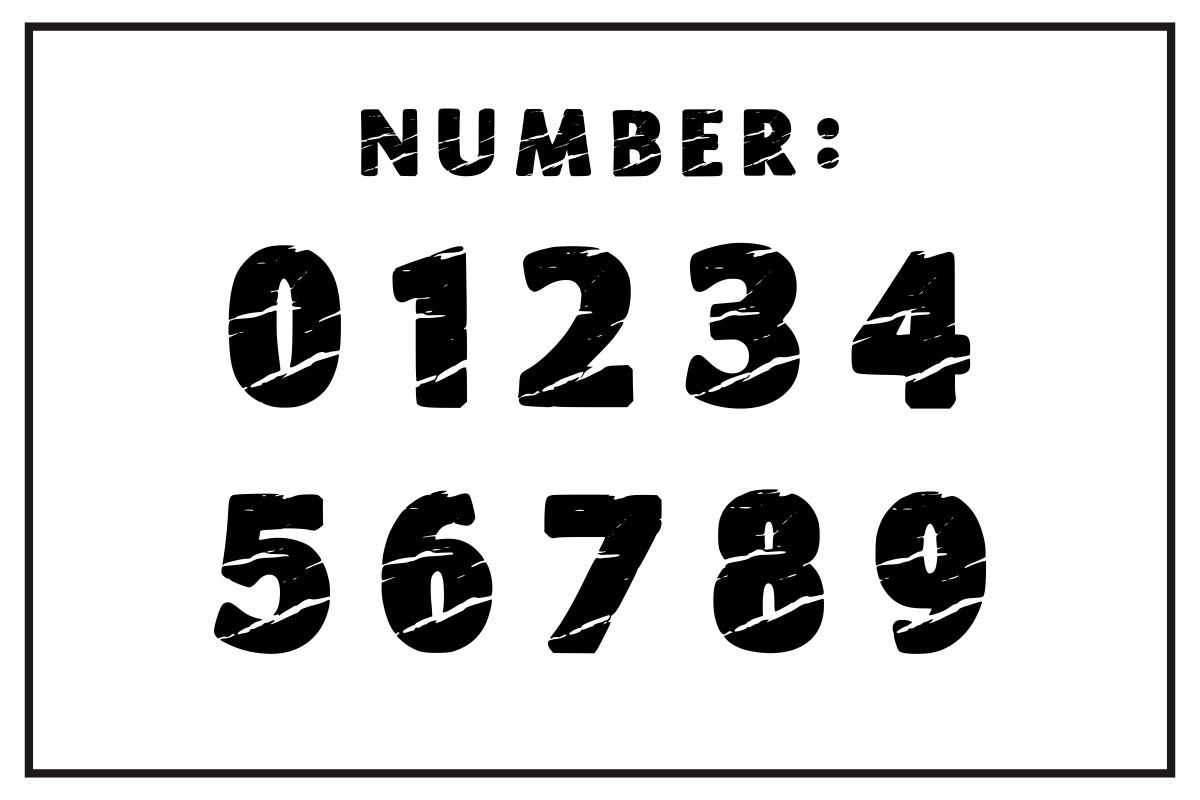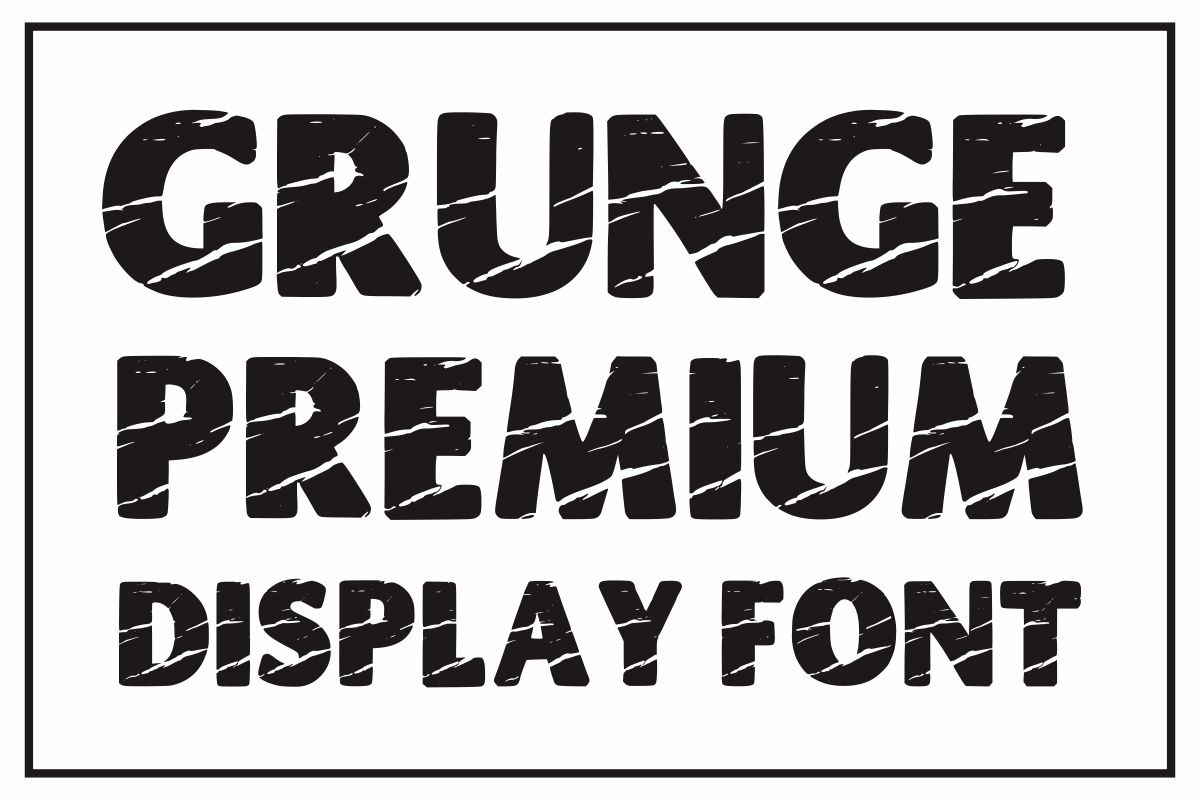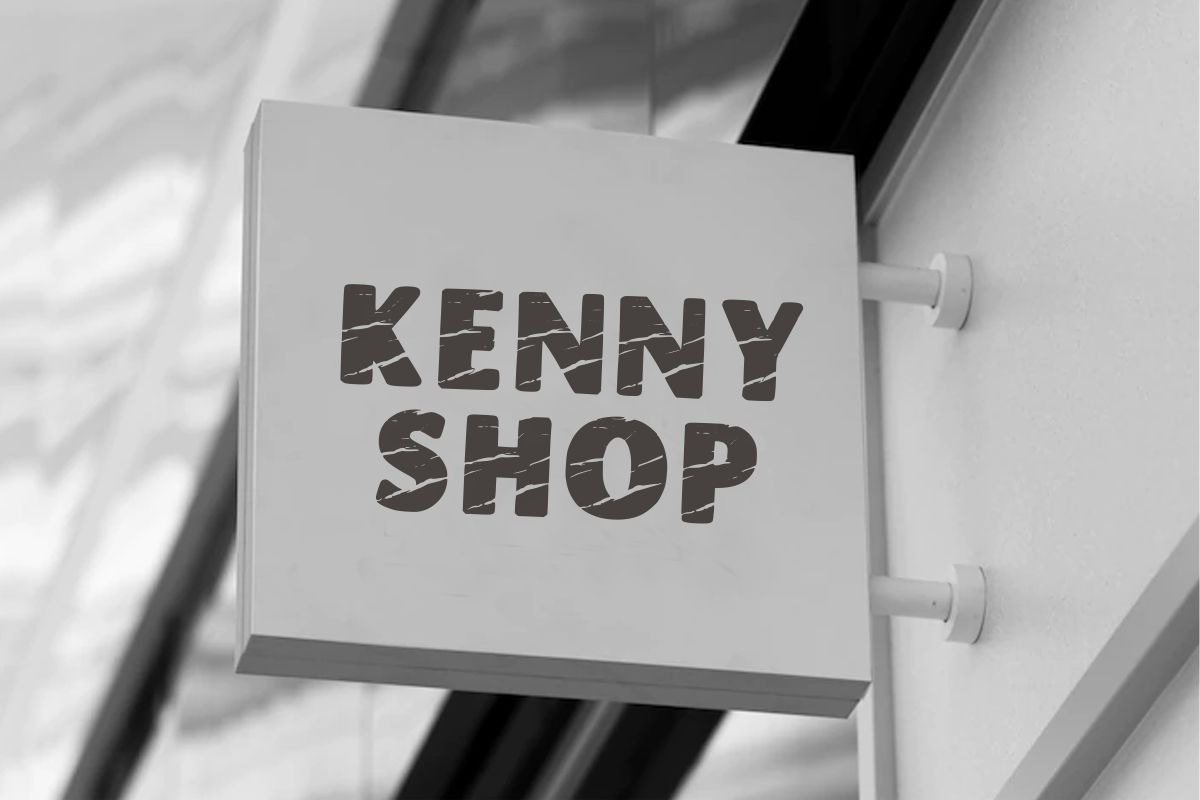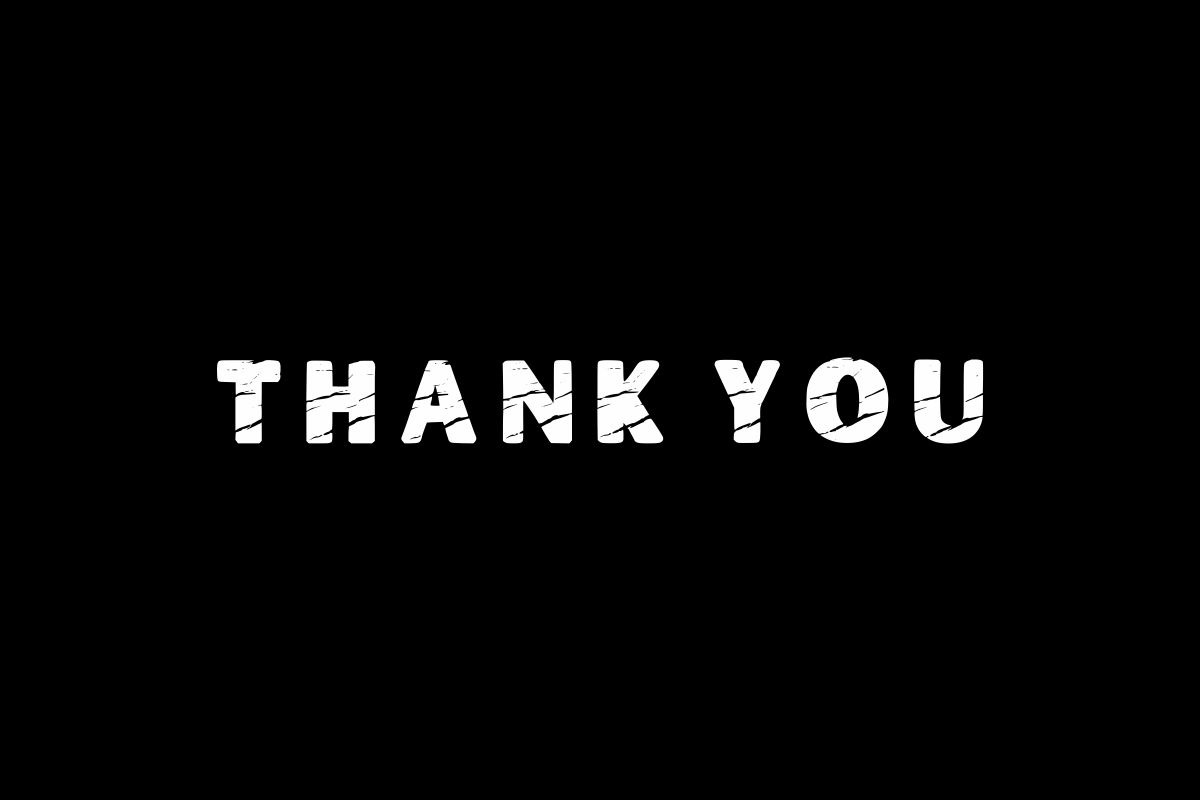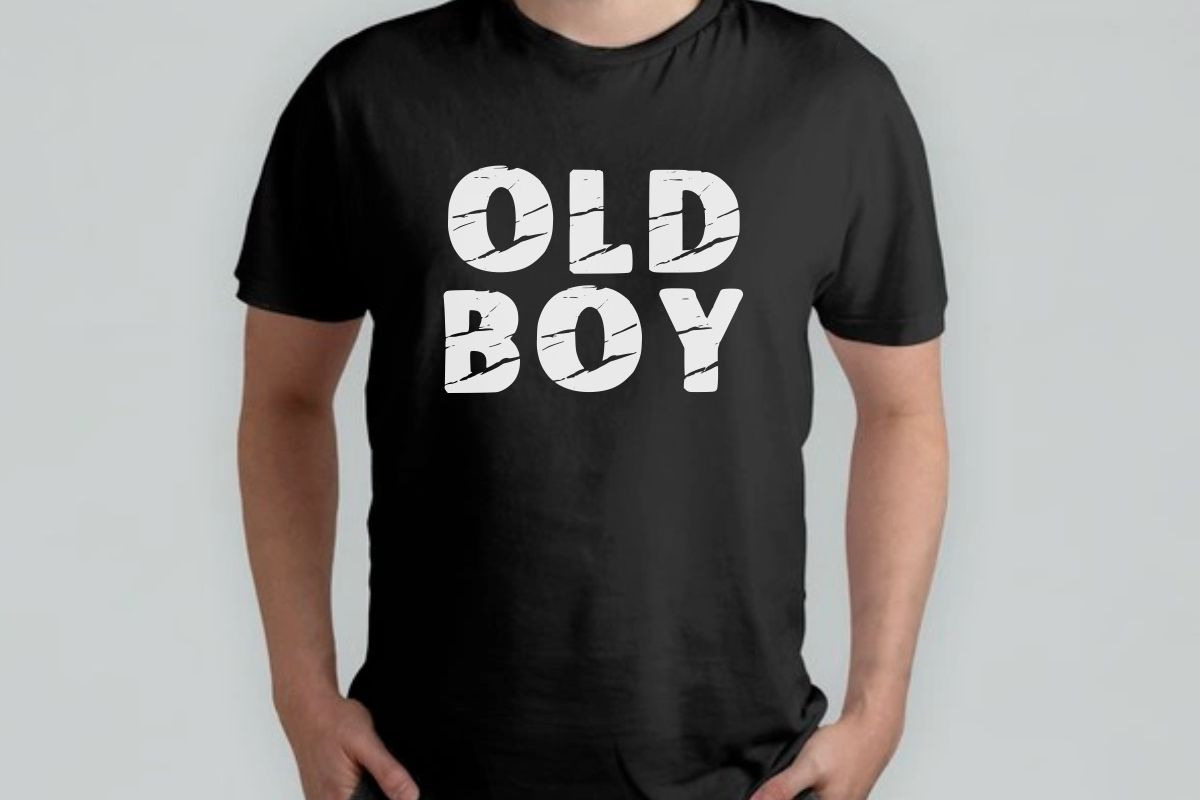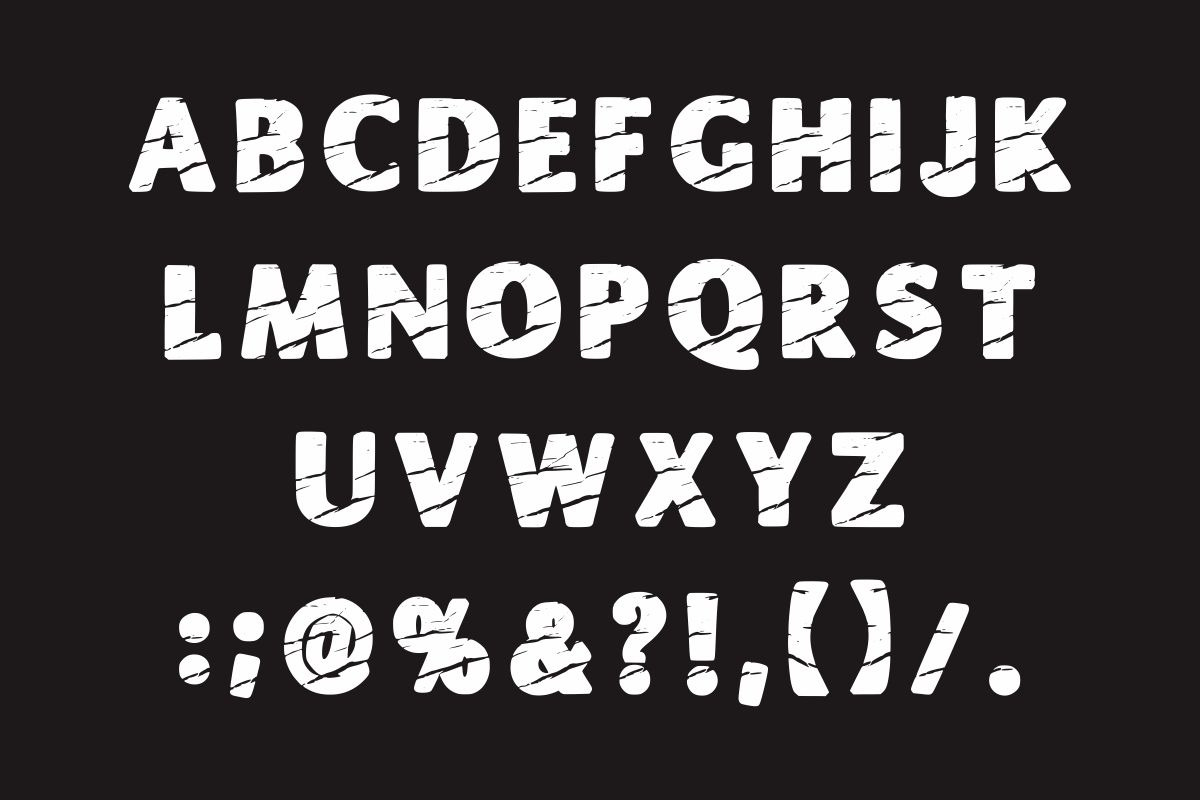
Grunge
Grunge is a cool and bold display font. You can use it for various projects, such as blog posts, logos, branding, ads, invitations, greeting cards, planners, photo albums, decorations, and much more.